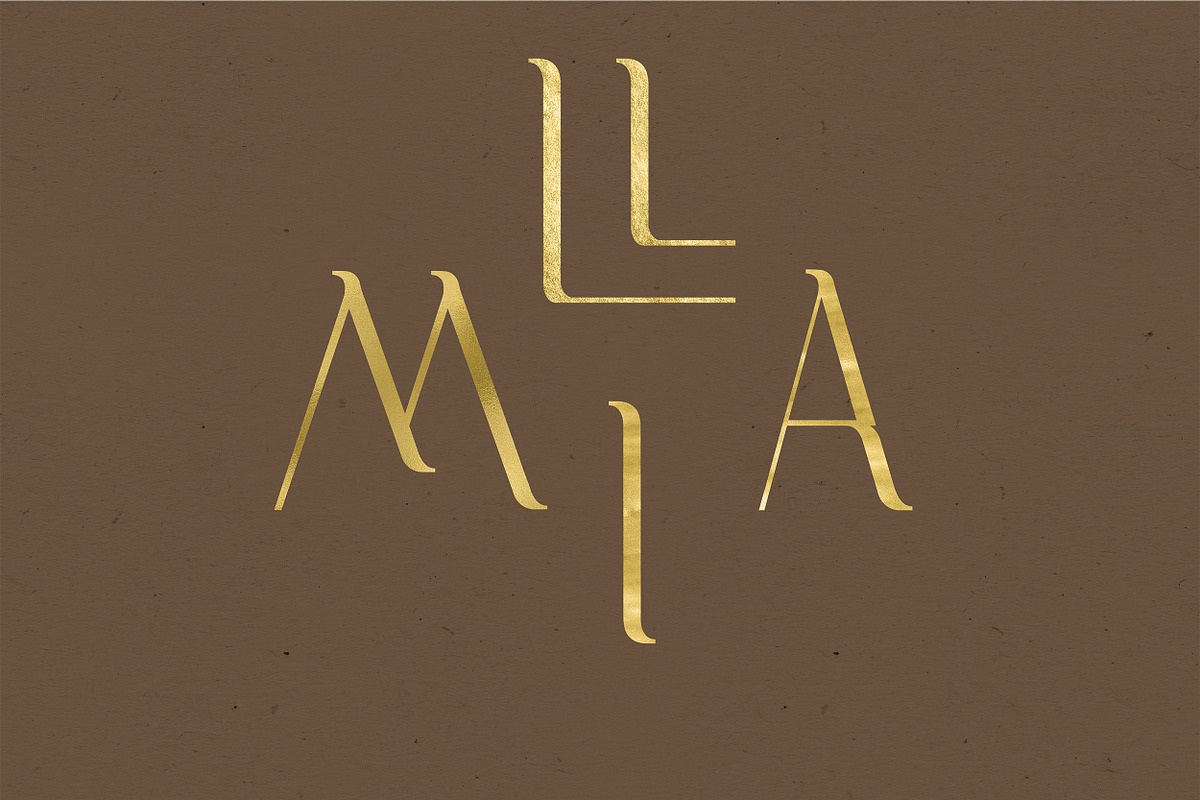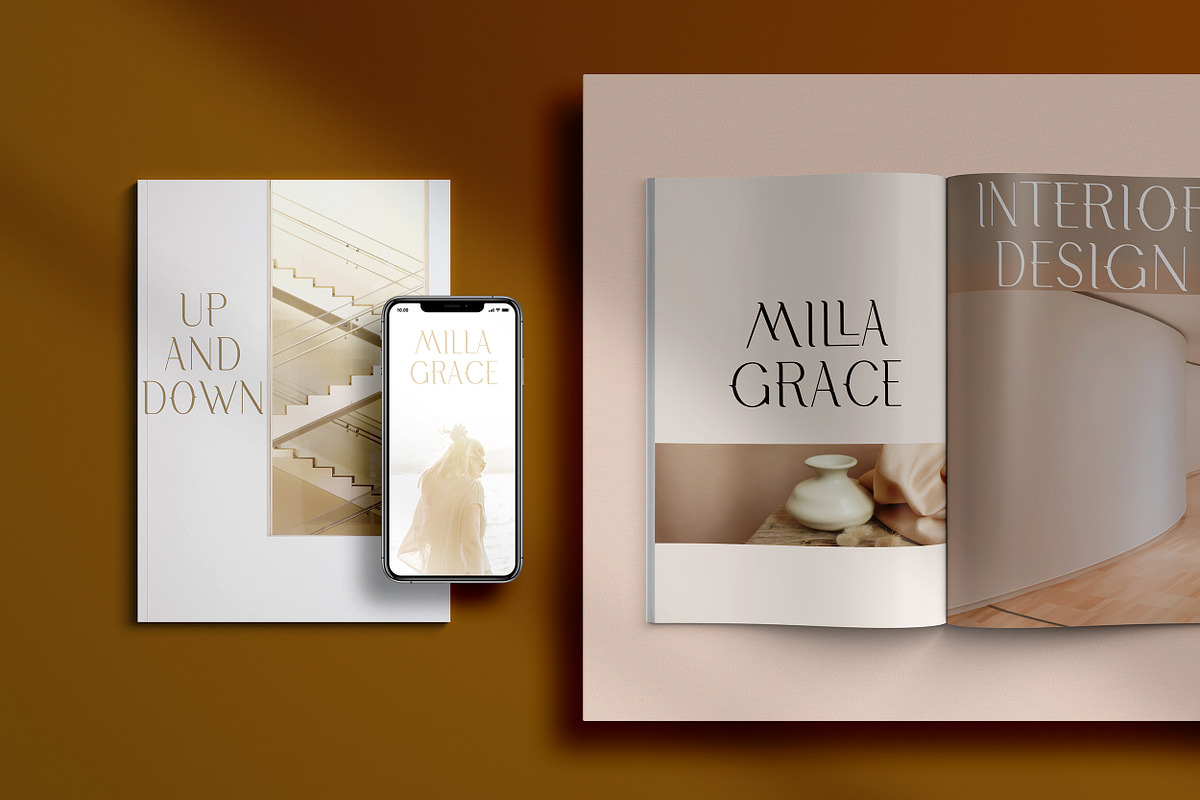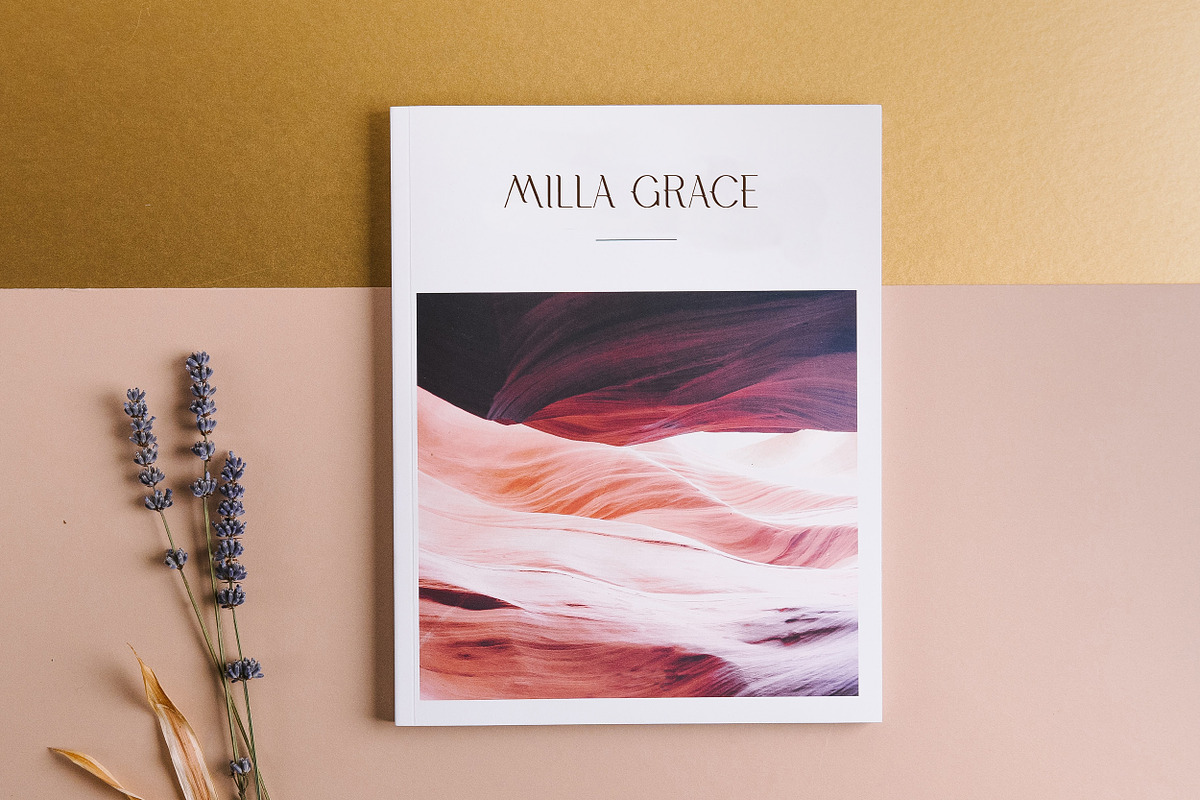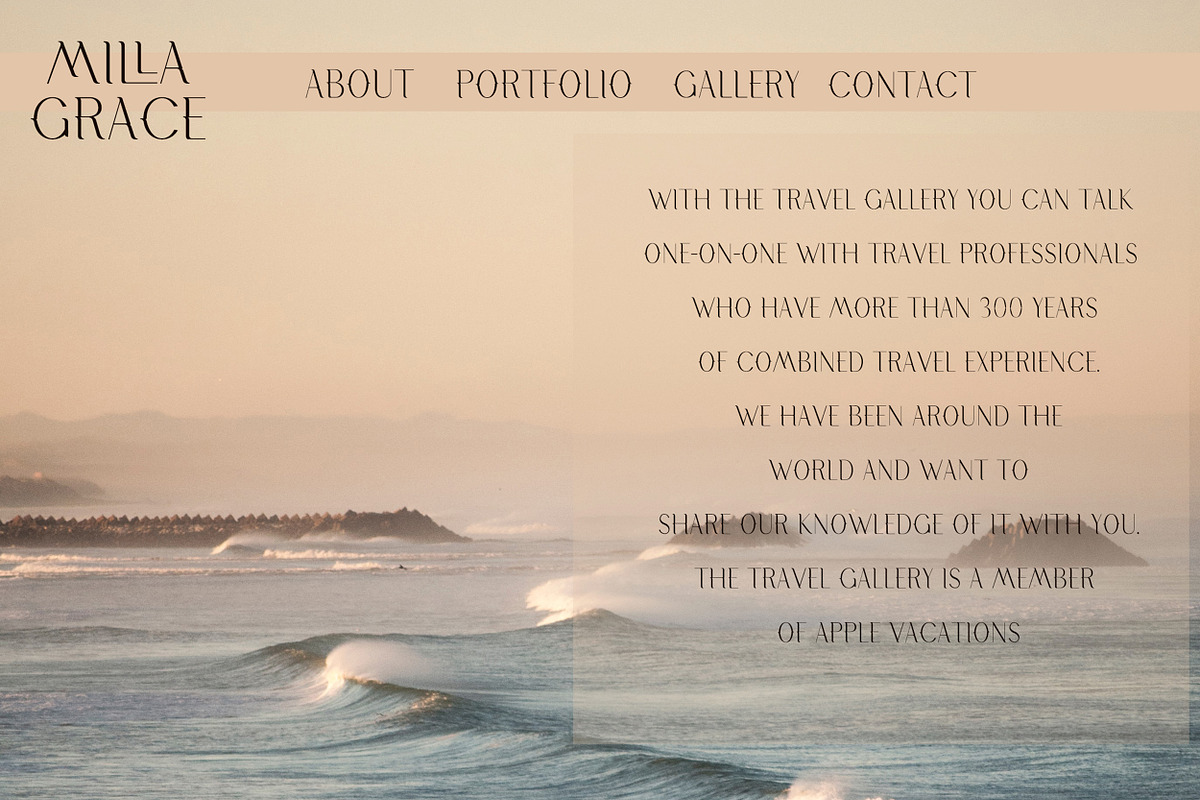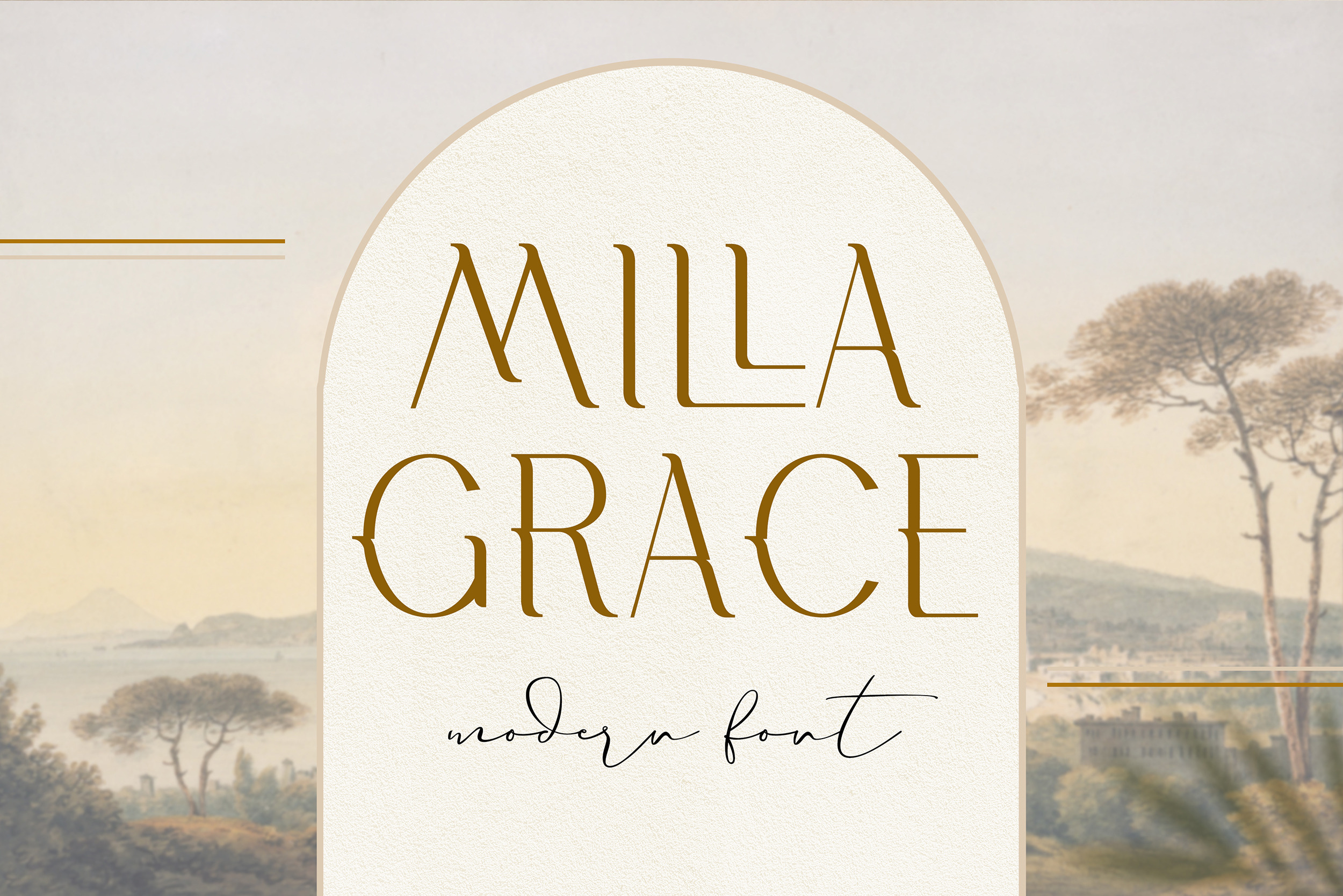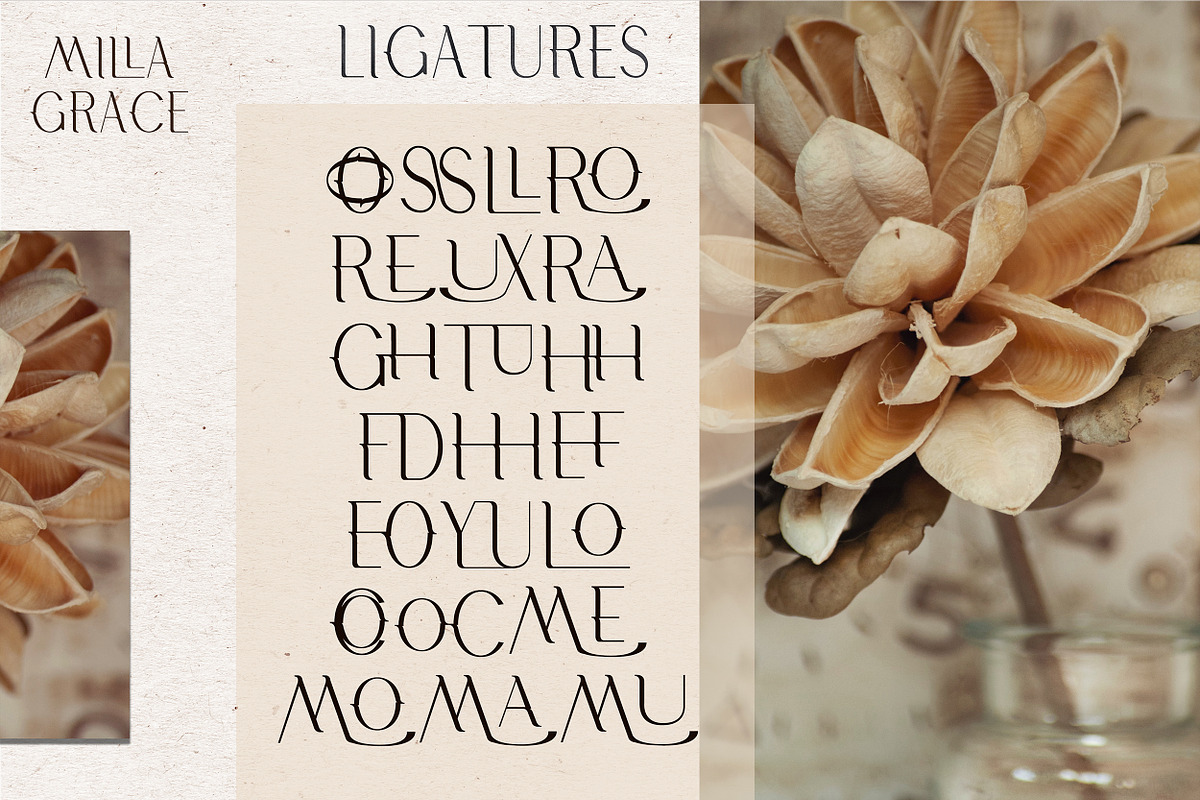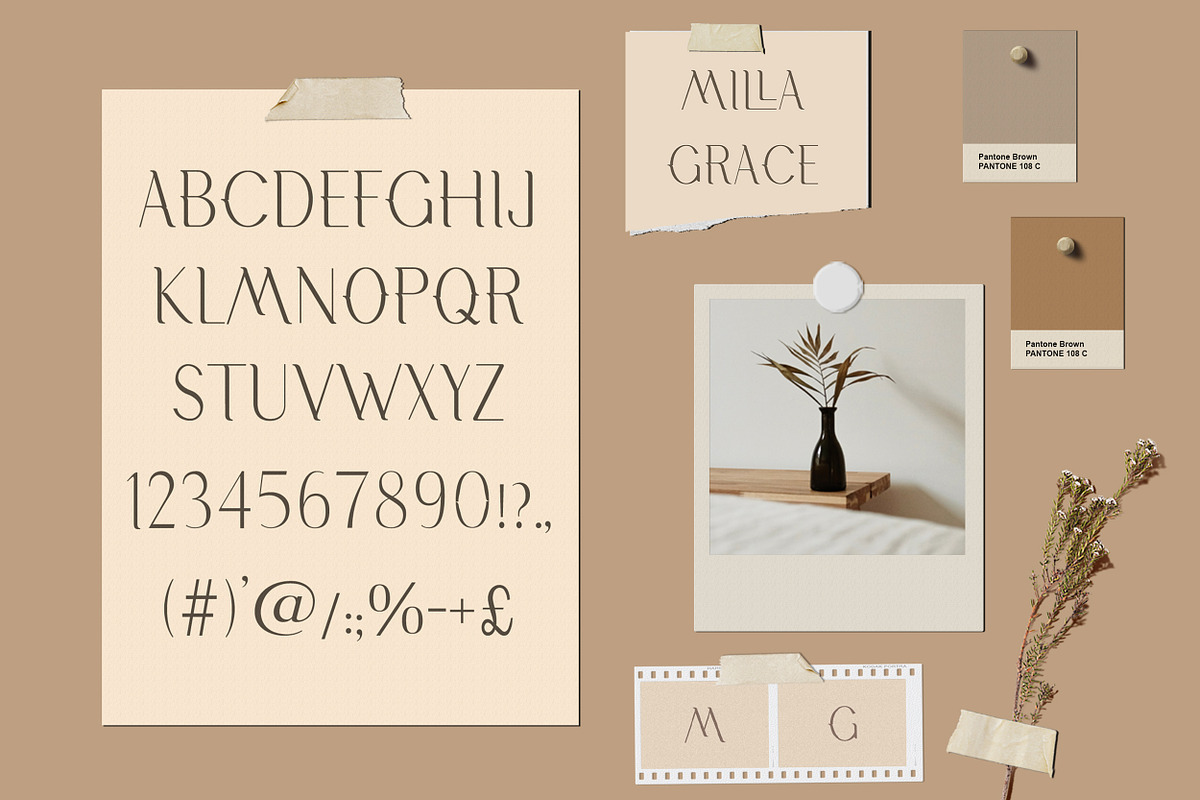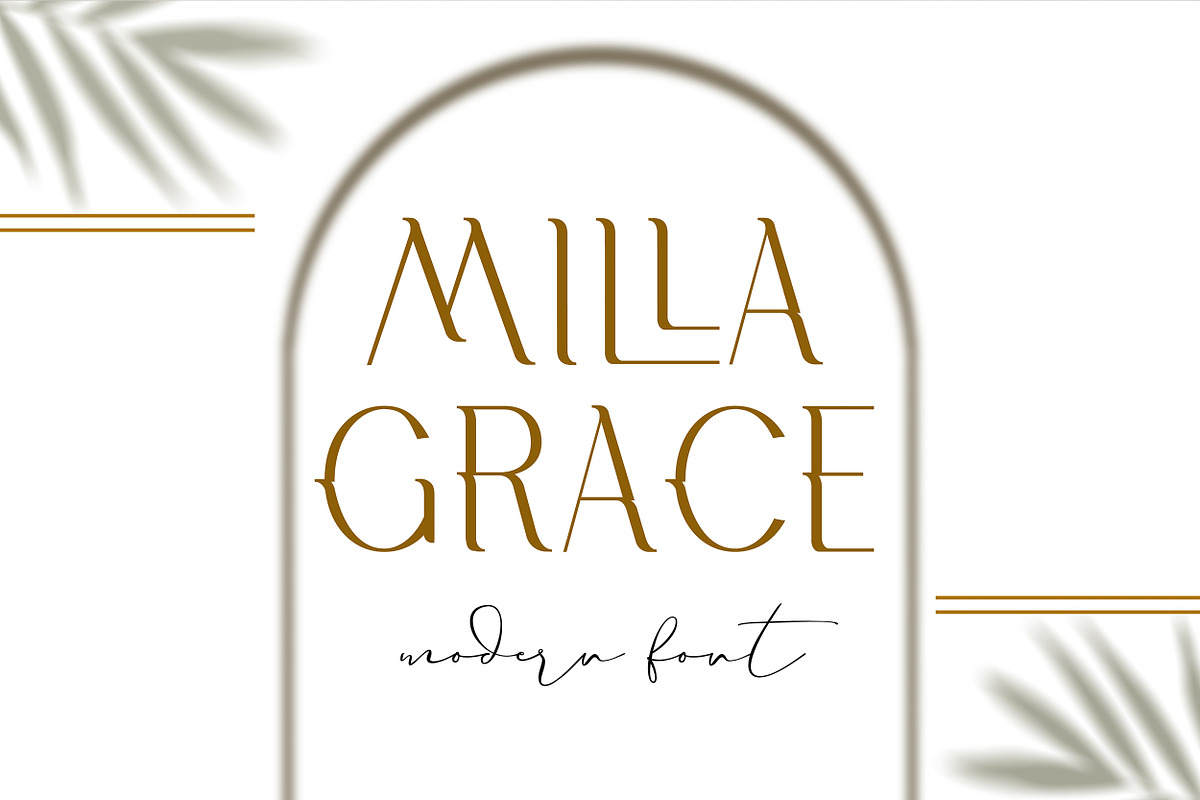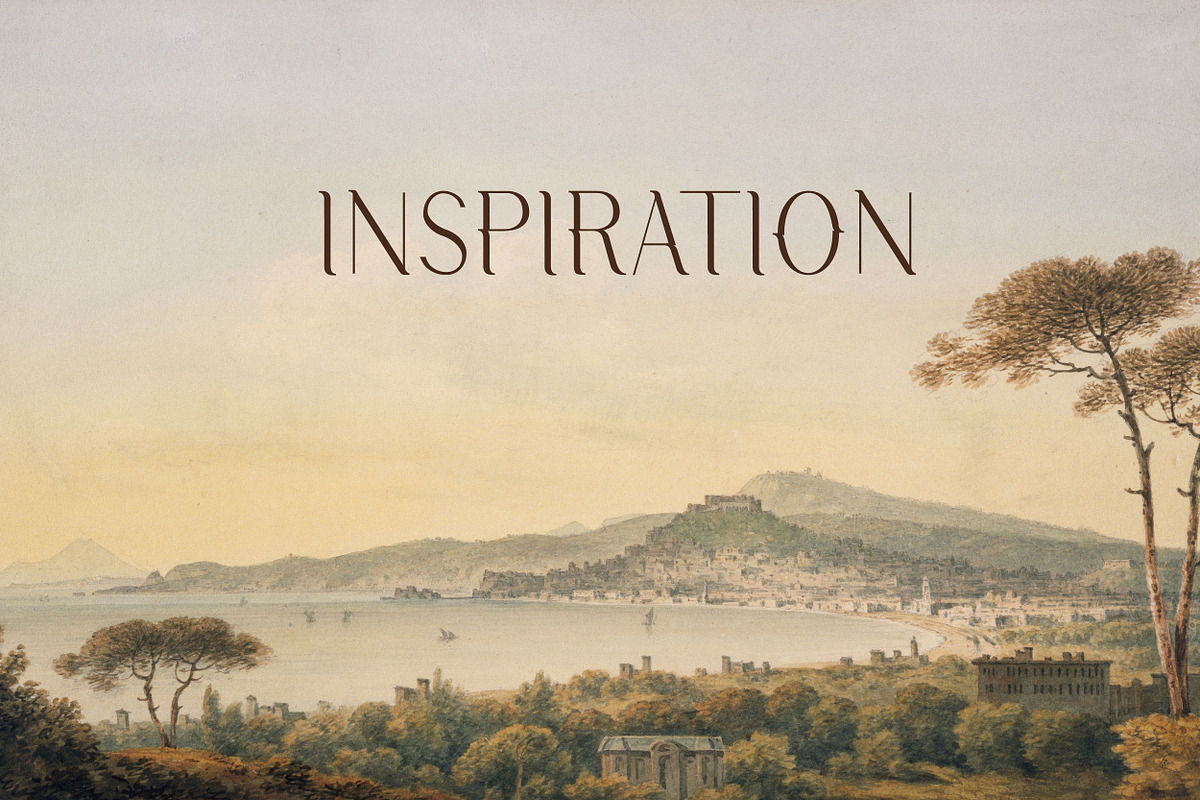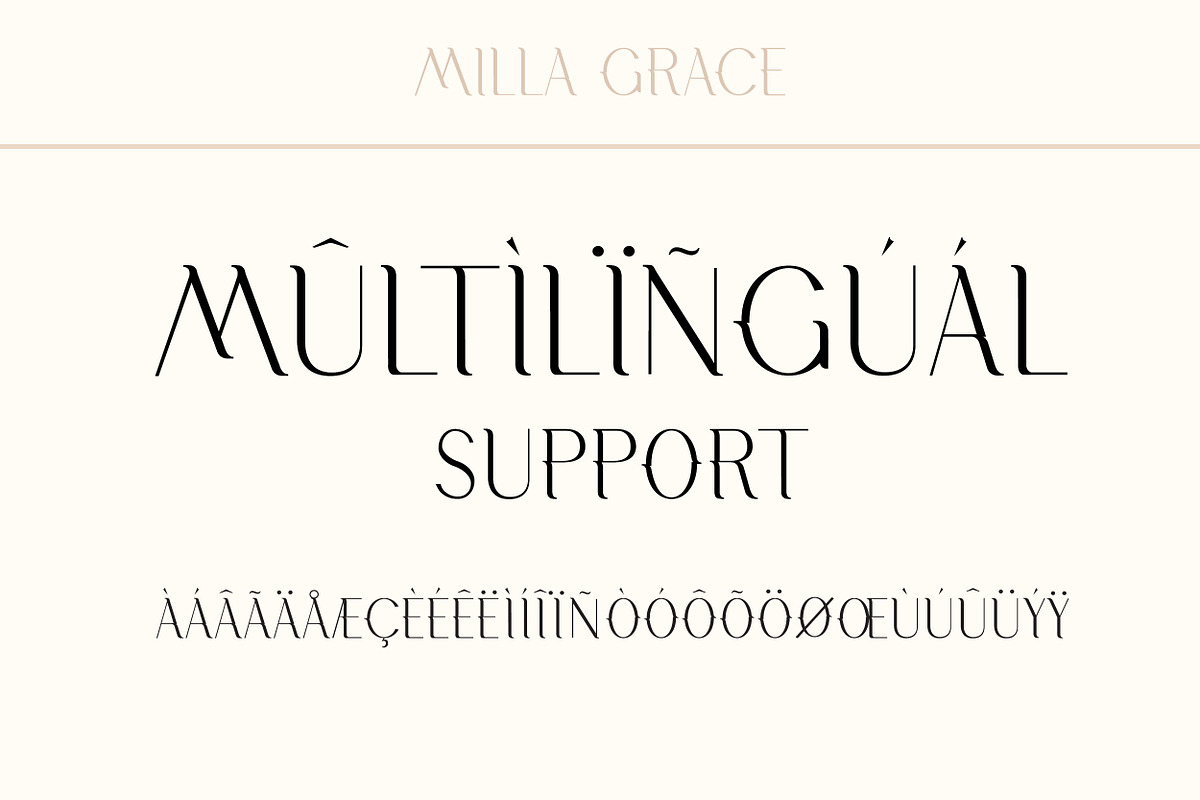
Milla Grace. Modern Classic Font
Milla Grace is a modern & classic font.
This font is ideal for creating logos and branding. With original ligatures.
It works perfect for creating sites, logos, striking editorials, invitations, graphic quotes, and more.
Uppercase Characters & Discretionary Ligatures
Multilingual support for various languages